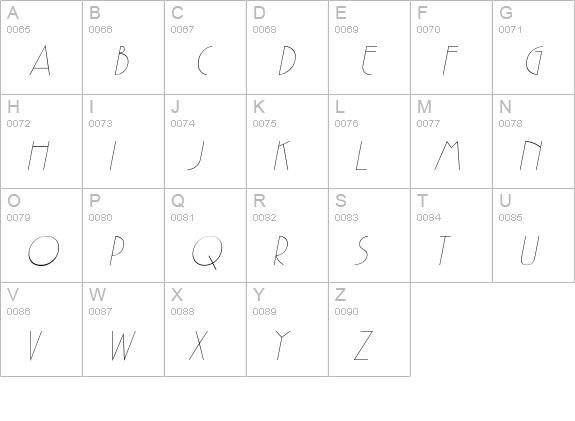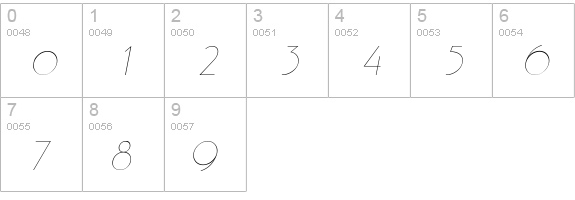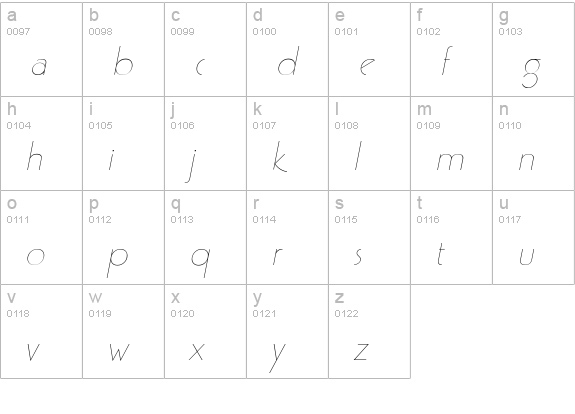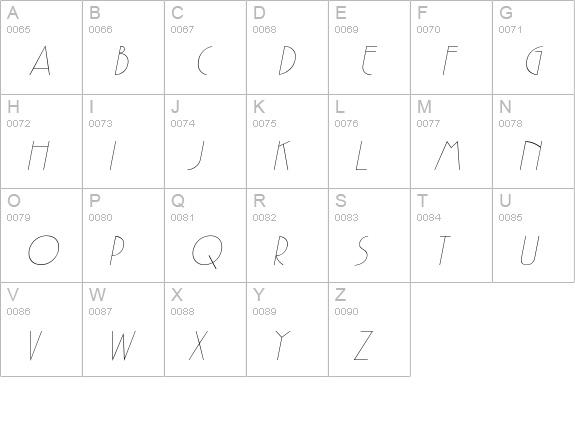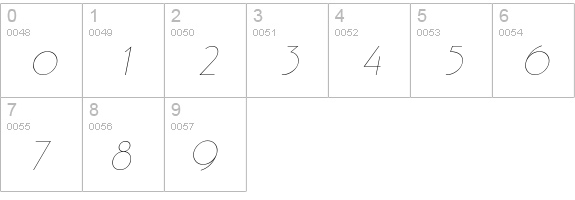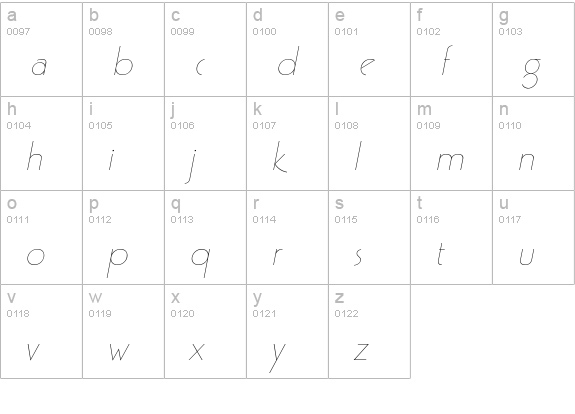
P700-Deco-Italic Font Details
P700-Deco-Italic is a distinctive, italic variant in the P700 typeface family \xE2\x80\x94 well suited to design and typography projects.
The P700-Deco-Italic font exudes a sense of elegance and sophistication with its unique blend of Art Deco influences and modern design elements. Its sleek and stylish italicized characters flow seamlessly, making it a perfect choice for projects that require a touch of sophistication and flair. This versatile font is ideal for a wide range of design applications, from branding and advertising to invitations and packaging. Its clean lines and subtle curves add a touch of refinement to any project, while its bold presence ensures that your message will stand out. What's even better is that the P700-Deco-Italic font is available for free download at FontsMarket.com. This means you can easily access this stunning font and incorporate it into your projects without any cost. Don't miss out on the opportunity to elevate your designs with this elegant and stylish typeface. Download the P700-Deco-Italic font today and watch your creations come to life with a touch of sophistication and class.